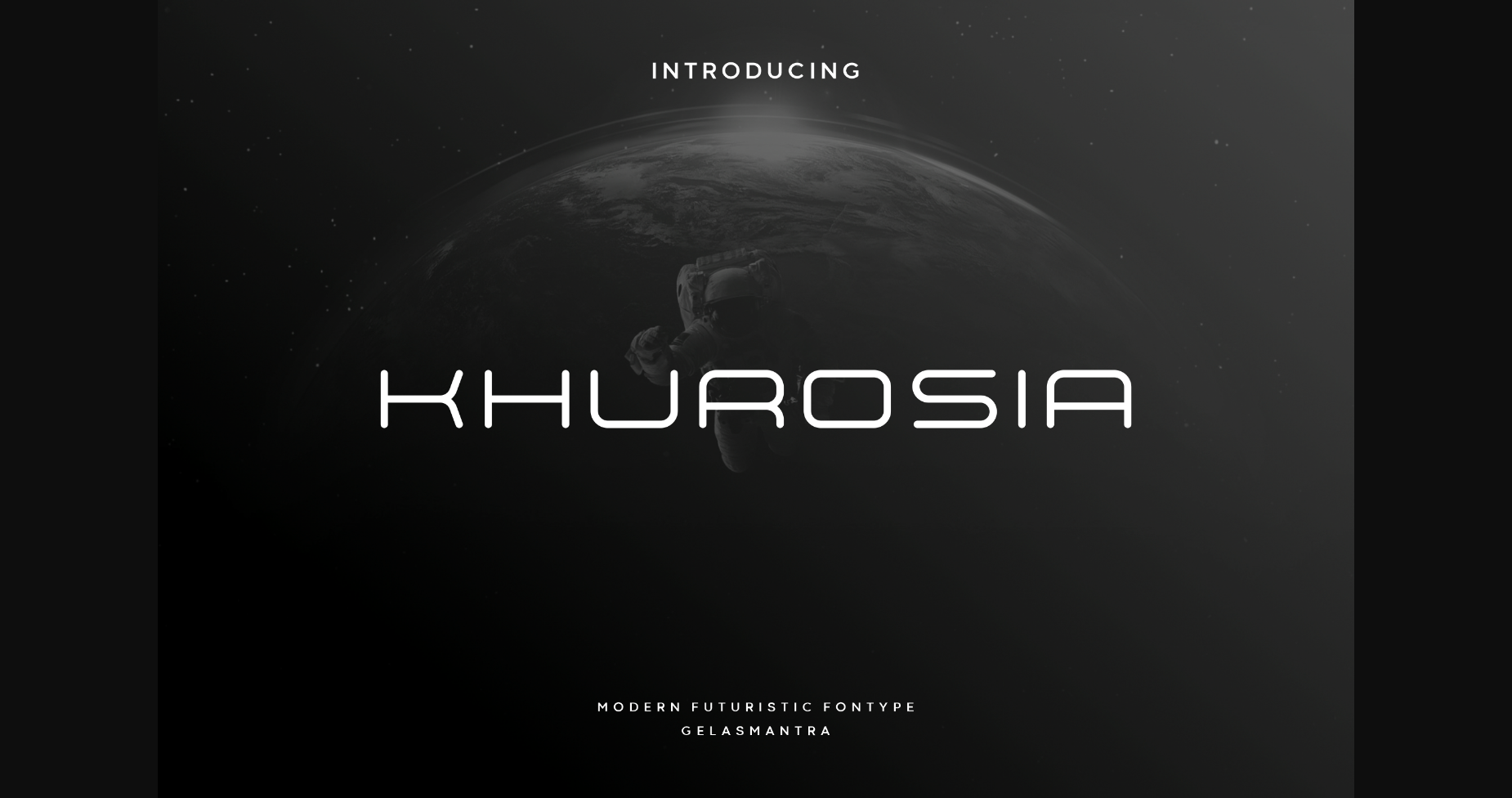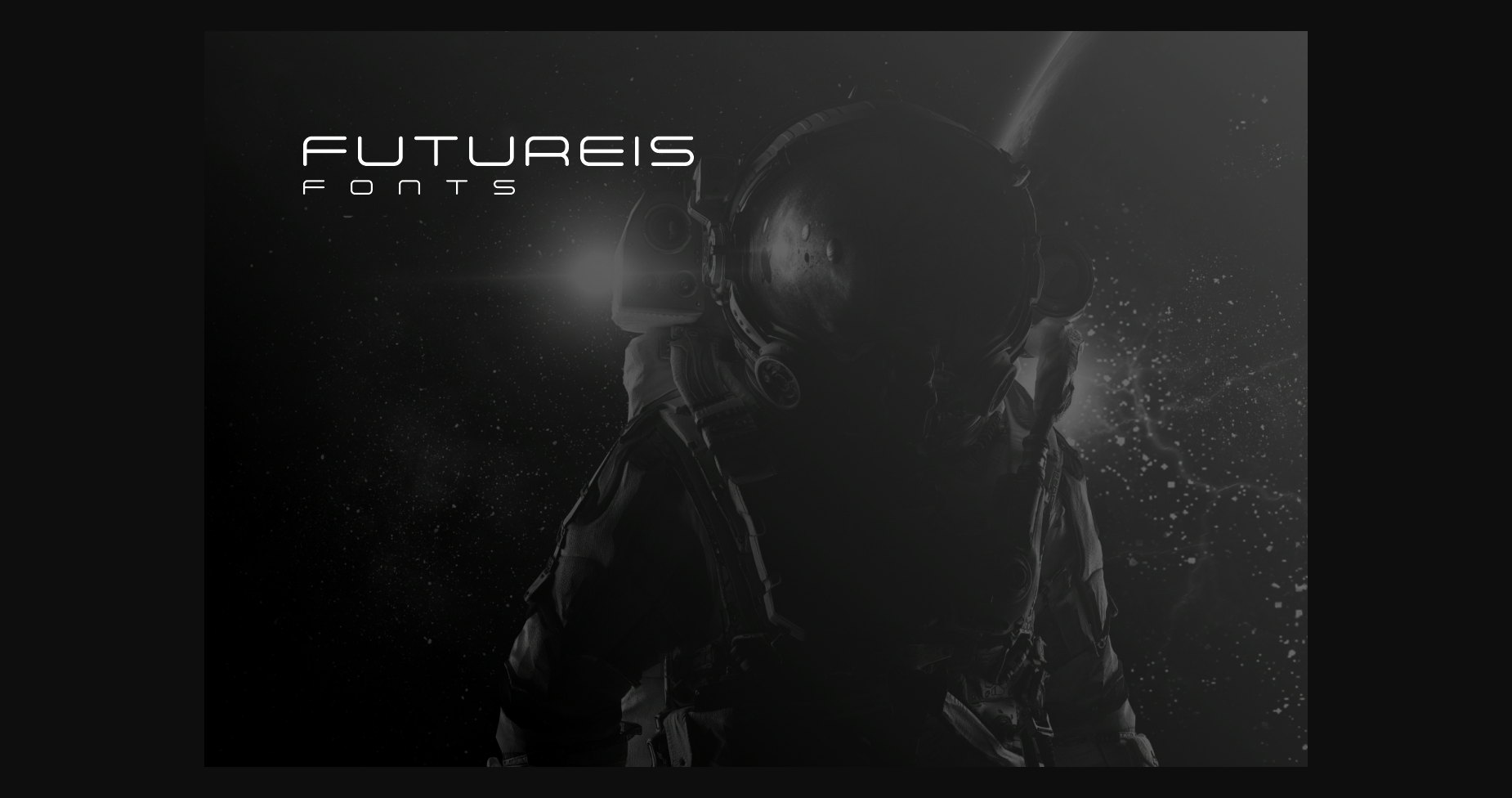
About Khorusia Font
Khorusia is a futuristic sans serif font inspired by science fiction movies and books. Minimalistic is the main style for this typeface, while its outline style gives a more modern and elegant look. This font is suitable for movies, posters, logos, labels, the Web, or anything modern.